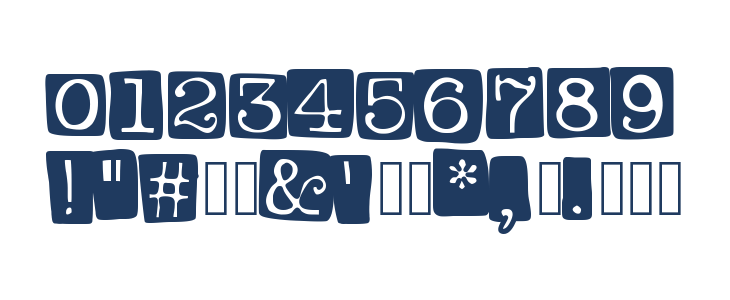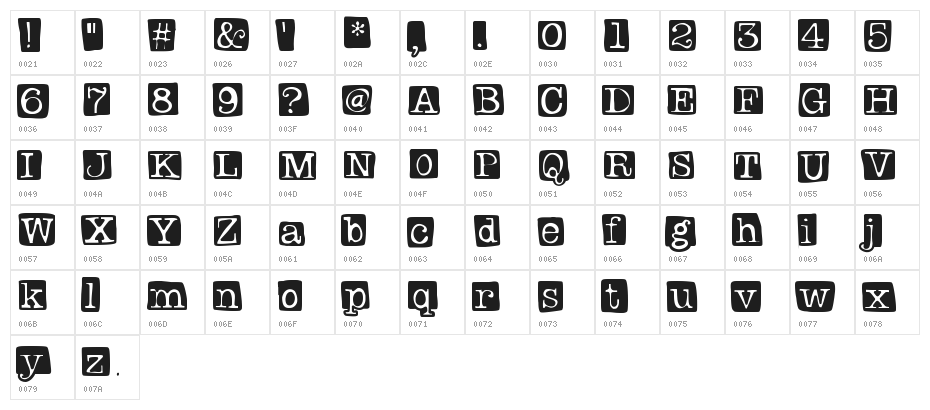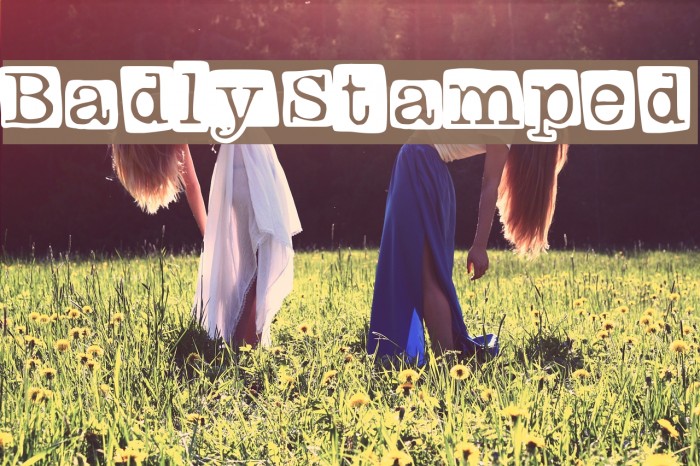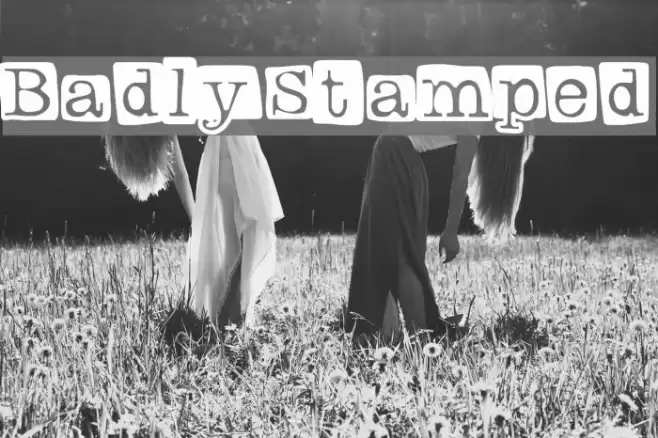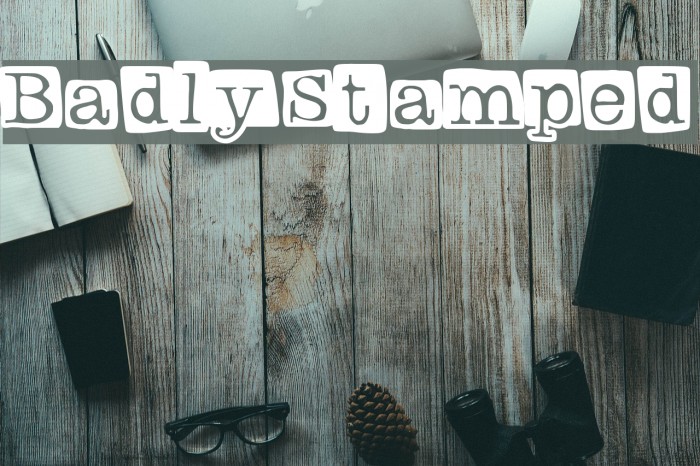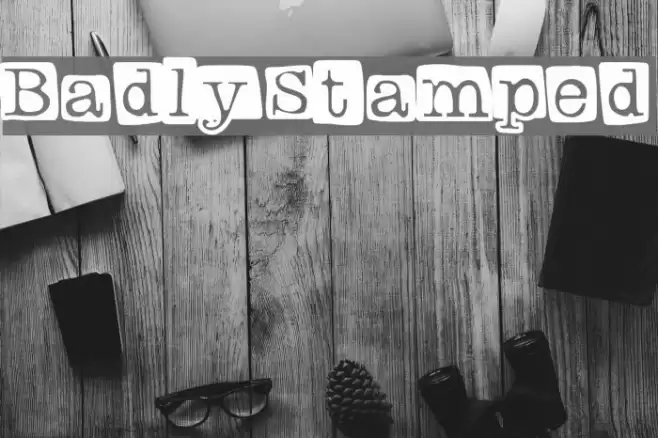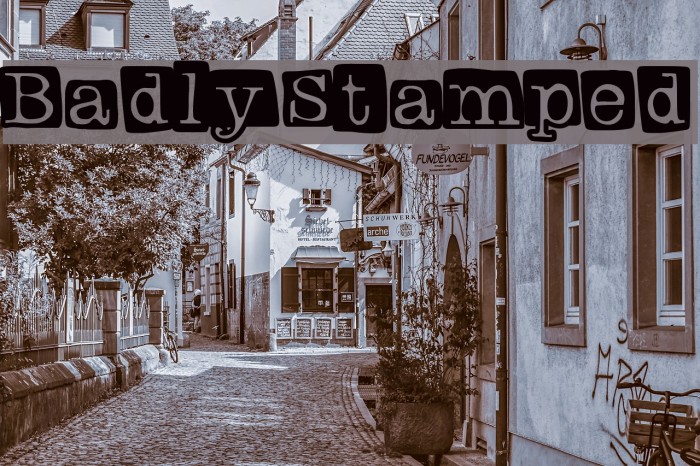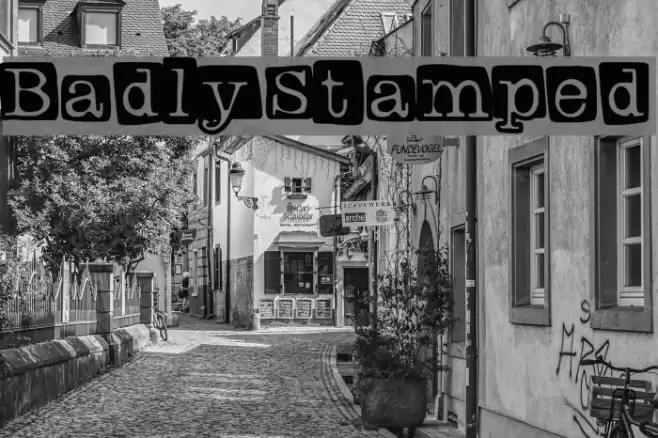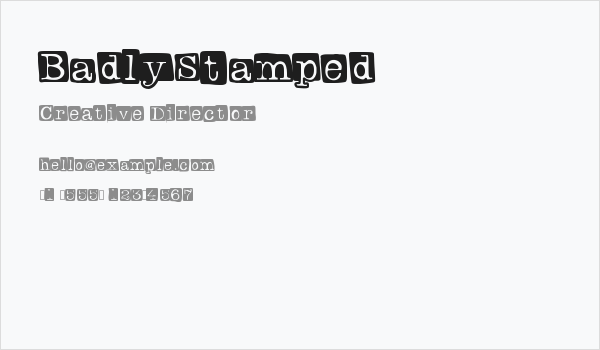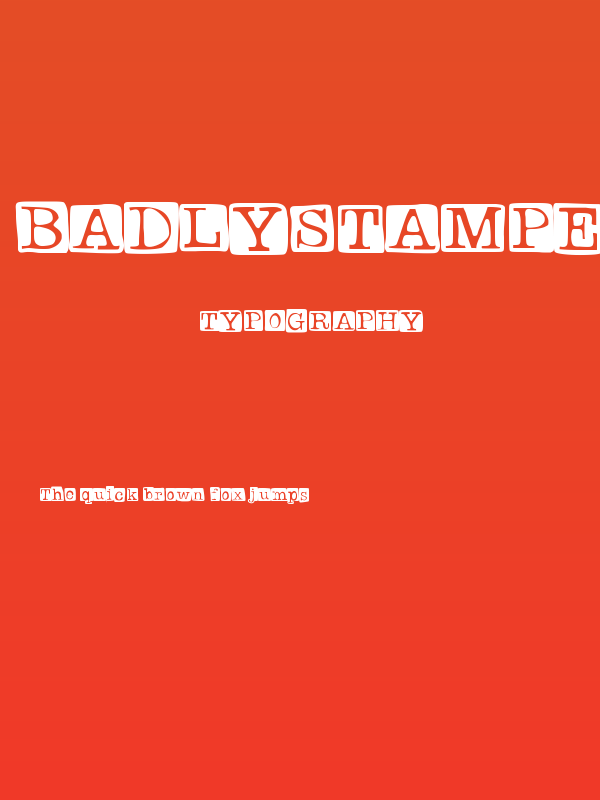
BadlyStamped Font
BadlyStamped Description
This font features a bold and playful design with a distinct stamped effect. Each character appears as if it has been individually stamped onto a surface, creating a unique and slightly irregular outline. The letters are enclosed in rectangular shapes, adding to the impression of a stamped label. The style is bold and eye-catching, making it suitable for projects that require a strong visual impact. The font's quirky and informal appearance lends itself well to creative and artistic applications, where a touch of whimsy is desired.
| Proposed Projects | Ideal for posters, album covers, children's books, and creative branding projects. |